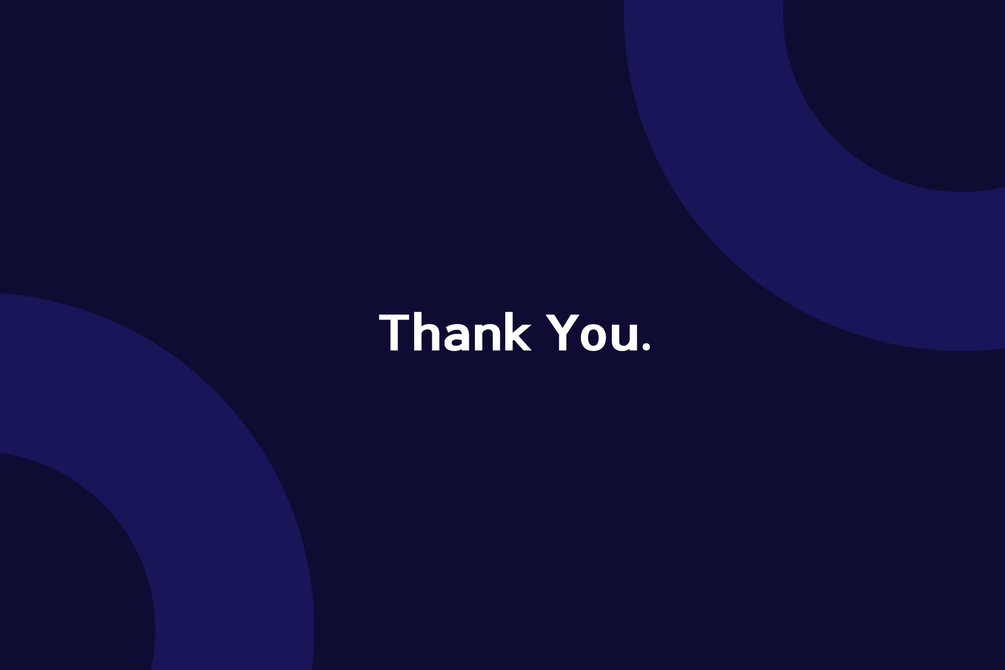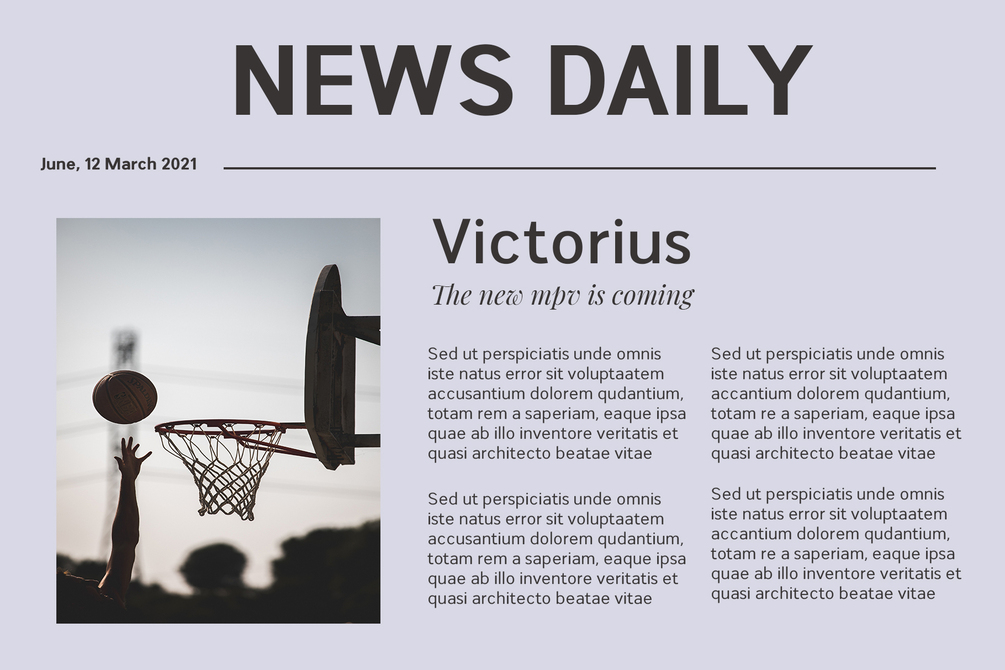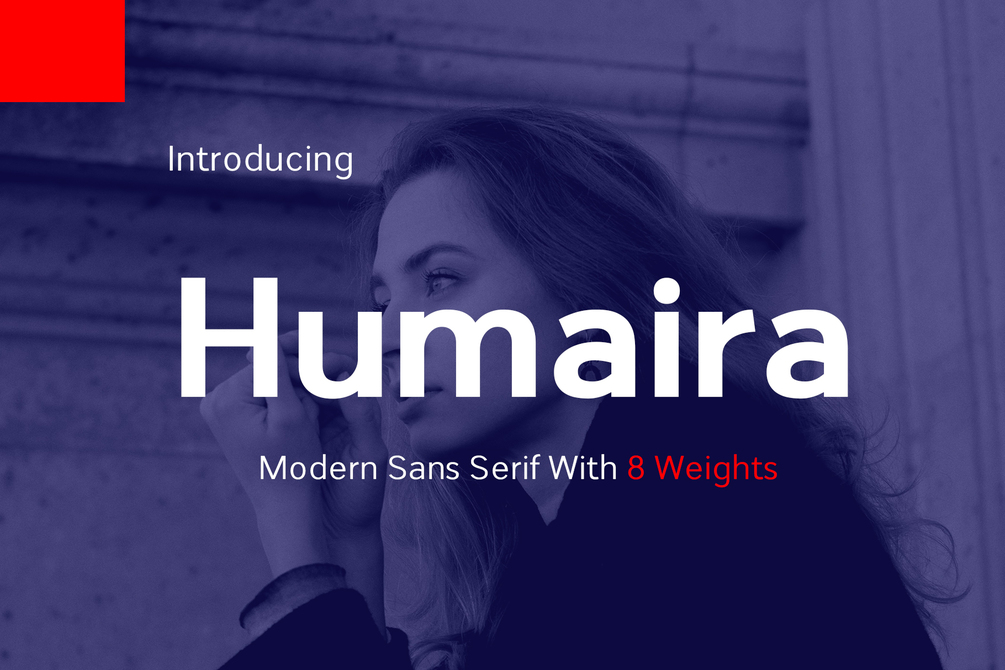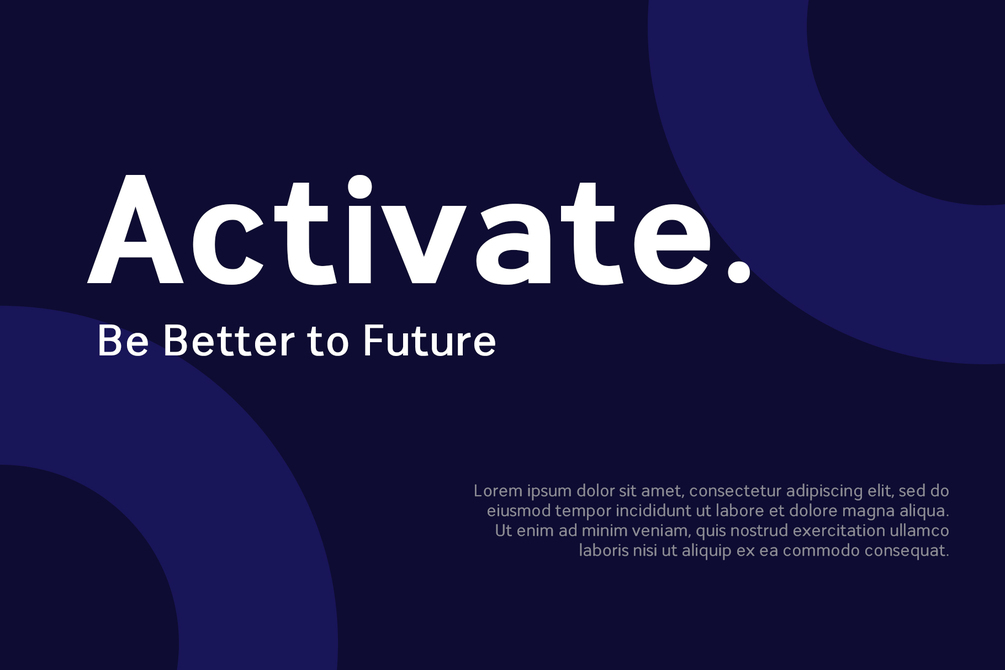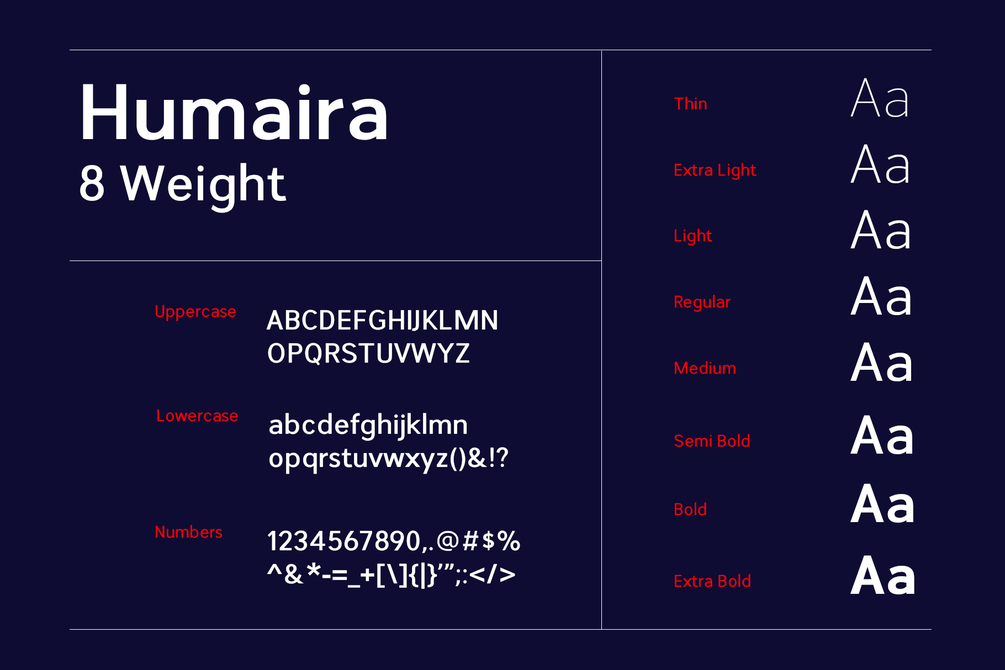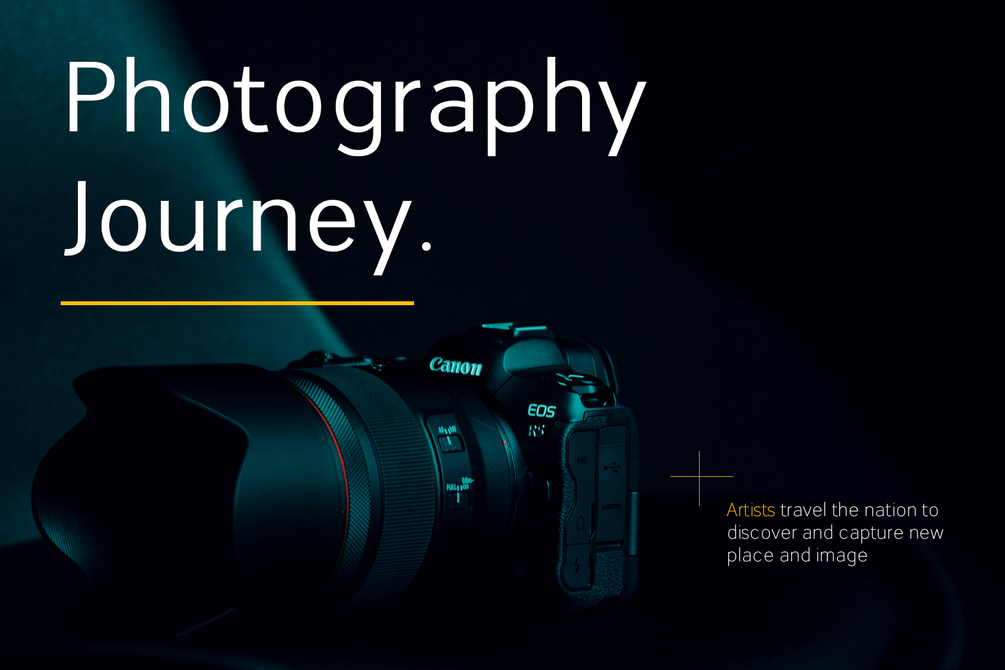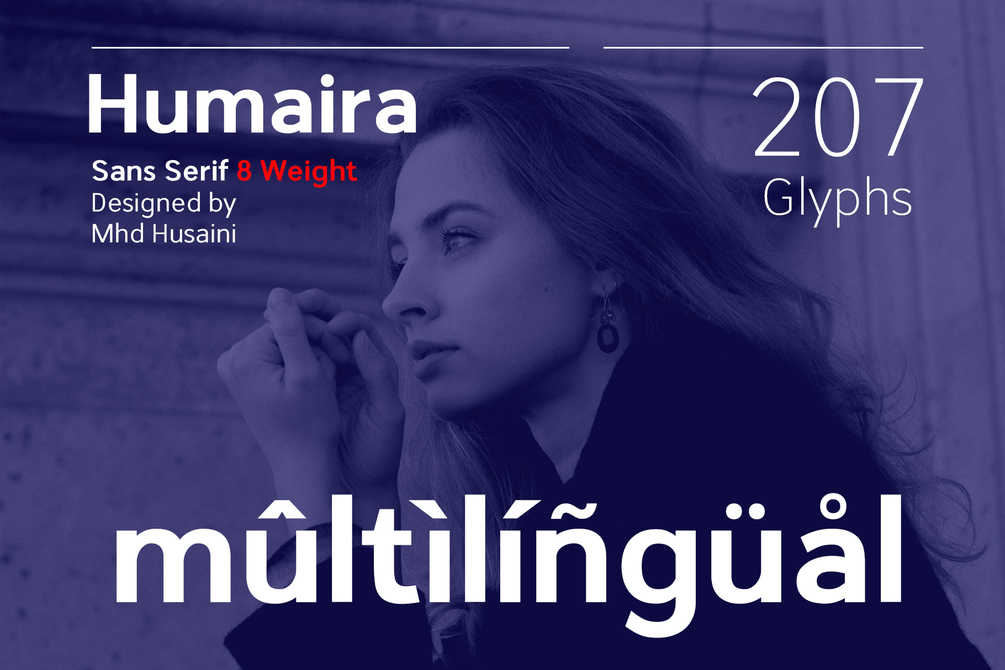
Humaira - Modern Sans Serif
Introducing Humaira: The Modern Sans Serif Font Family
Elevate Your Designs with Sleek and Versatile Typography
Meet Humaira, the ultimate modern sans serif font family designed to bring sophistication and versatility to your design projects. With 8 distinct weights, Humaira offers unparalleled flexibility, making it perfect for any creative endeavor, from sleek web design to bold print materials.
Key Features:
• Modern Design: Humaira features clean lines and a contemporary aesthetic, enhancing readability and visual appeal across various applications.
• Eight Versatile Weights: From Thin to Extra Bold, Humaira provides the perfect weight for every design need.
Why Choose Humaira?
Sleek and Versatile: Humaira’s modern design makes it suitable for a wide range of applications, from digital to print, ensuring your text always looks professional and stylish.
Perfect for Multiple Uses: Whether you're designing for web, print, branding, or advertising, Humaira's range of weights provides the flexibility to adapt to any project.
Enhanced Readability: Humaira's balanced letterforms and optimal spacing ensure that your text remains clear and easy to read, providing both beauty and functionality.
Weights:
• Thin: For a delicate and subtle look.
• Extra Light: Adds a touch of lightness without being too bold.
• Light: Perfect for clean and refined text.
• Regular: Ideal for a balanced and standard appearance.
• Medium: Adds a touch of weight without overpowering.
• Semi Bold: For a stronger presence without being too bold.
• Bold: Makes a strong statement with impactful text.
• Extra Bold: Provides maximum emphasis and attention.
Transform Your Typography with Humaira
Humaira is more than just a font family; it’s a complete typographic solution. Its wide range of weights and modern design make it the perfect choice for designers who value both aesthetics and functionality.